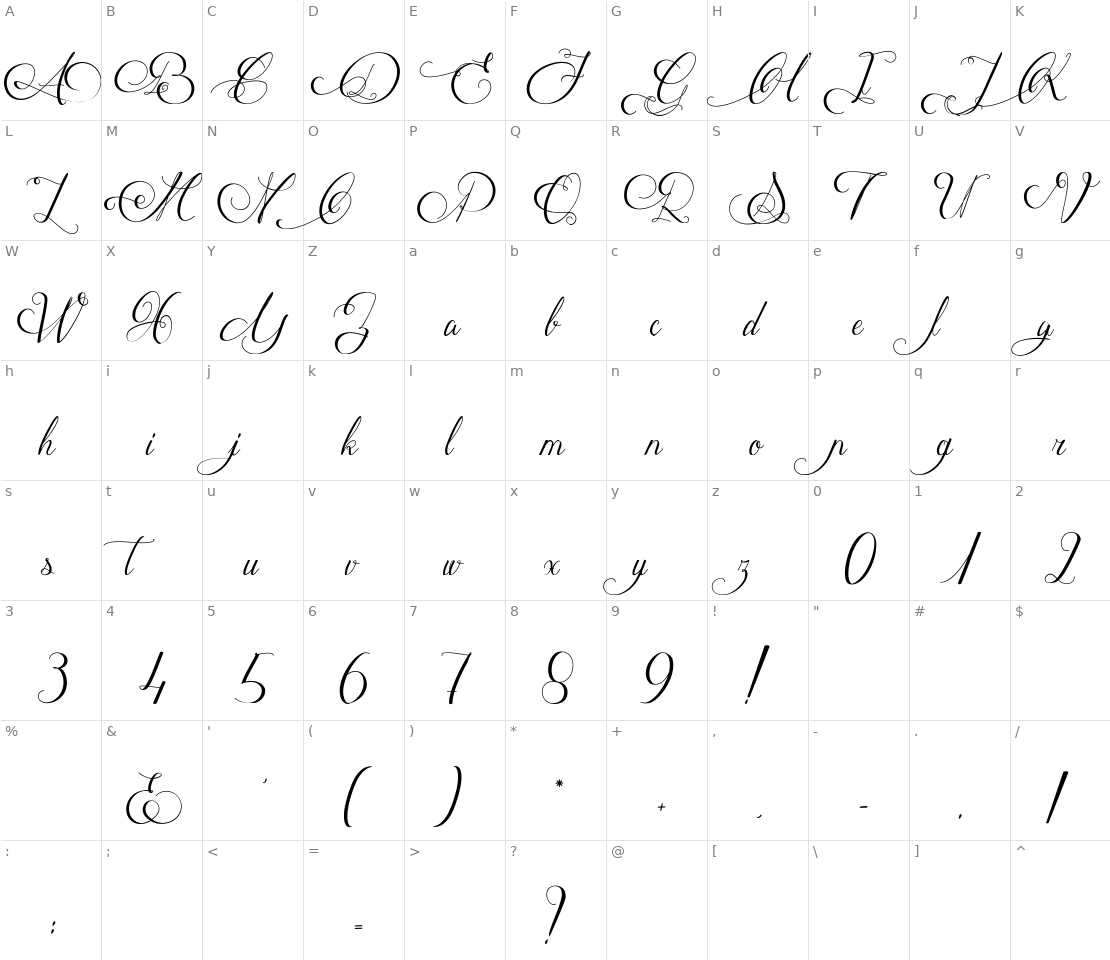
Mathilde Castleland
Mathilde Castleland is a delicate calligraphic script from Maelle.K and Thomas Boucherie, with thin, flowing strokes and generous flourishes that give it an unmistakably romantic quality. The letterforms feel hand-penned with real care, graceful and feminine without becoming overwrought. A natural choice for wedding invitations, formal stationery, and editorial work where elegance needs to feel personal rather than stiff.